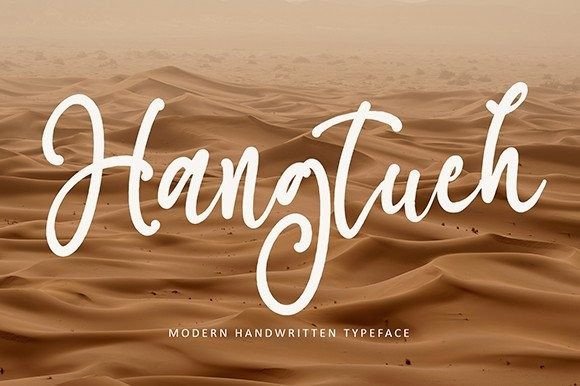
Introducing Hangtueh, a script font infused with the romance of handwritten notes and the timeless elegance of vintage calligraphy. This masterpiece from Pineungtype & Missinklab is not just a font, it's an invitation to embark on a journey of heartfelt expressions and exquisite artistry.
Whether you're crafting wedding invitations that whisper sweet promises or designing posters that exude a touch of nostalgia, Hangtueh is your perfect companion. Its flowing lines and graceful curves bring a sense of warmth and intimacy to any project, making it the ideal choice for branding, logos, and blog headers that seek to capture attention and leave a lasting impression.
Hangtueh's versatility extends beyond the digital realm. It's perfect for adding a personal touch to letters, invitations, and stationery, transforming them into treasured keepsakes that convey your heartfelt sentiments. Its delicate strokes lend an air of elegance to posters and banding, making them stand out from the mundane and inviting viewers to immerse themselves in the beauty of your message.
With Hangtueh, you're not just downloading a font; you're unlocking a world of creative possibilities. It's a key that opens doors to heartfelt expressions, captivating designs, and timeless charm. Embrace the allure of Hangtueh and let your creativity flourish.